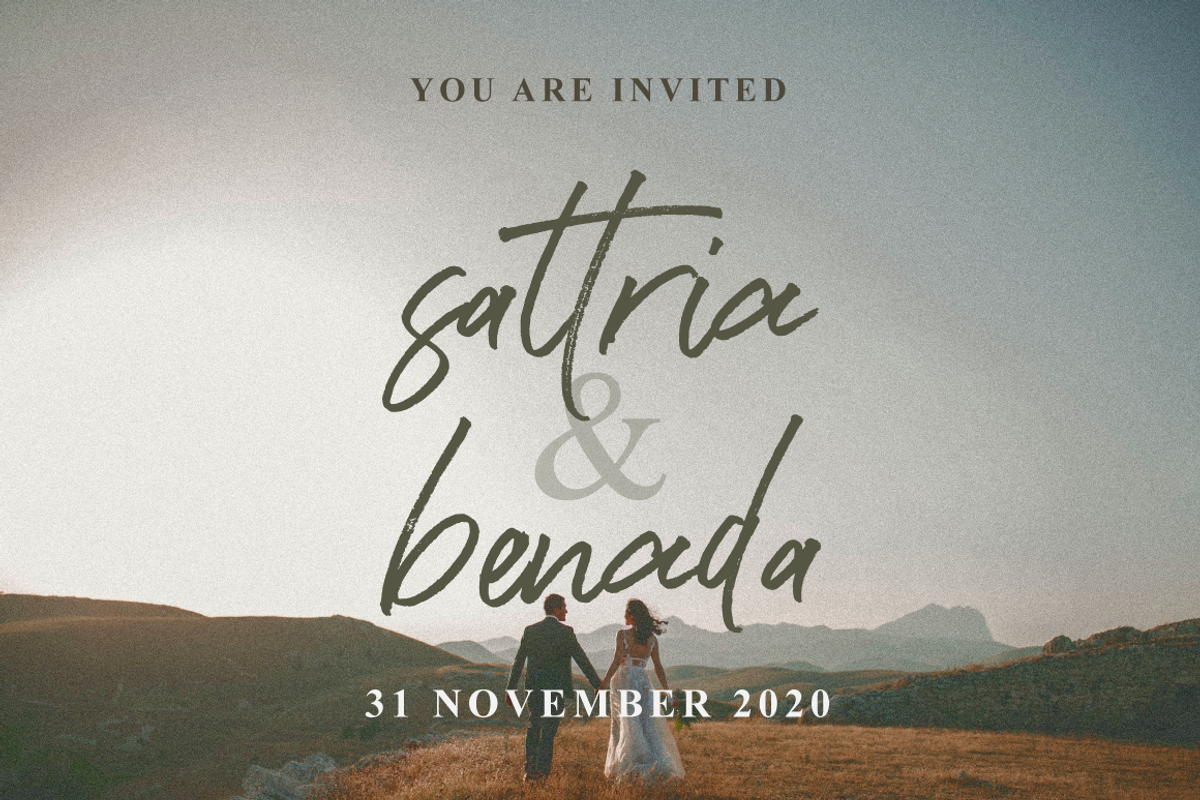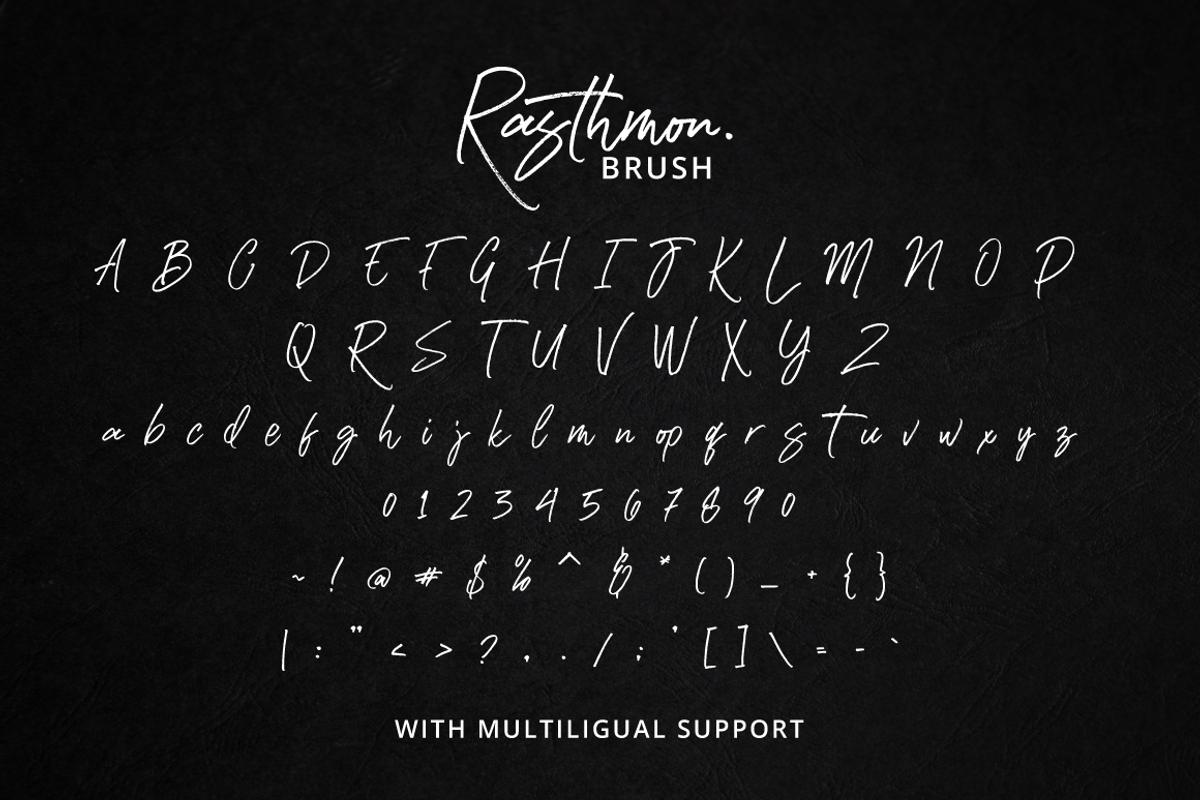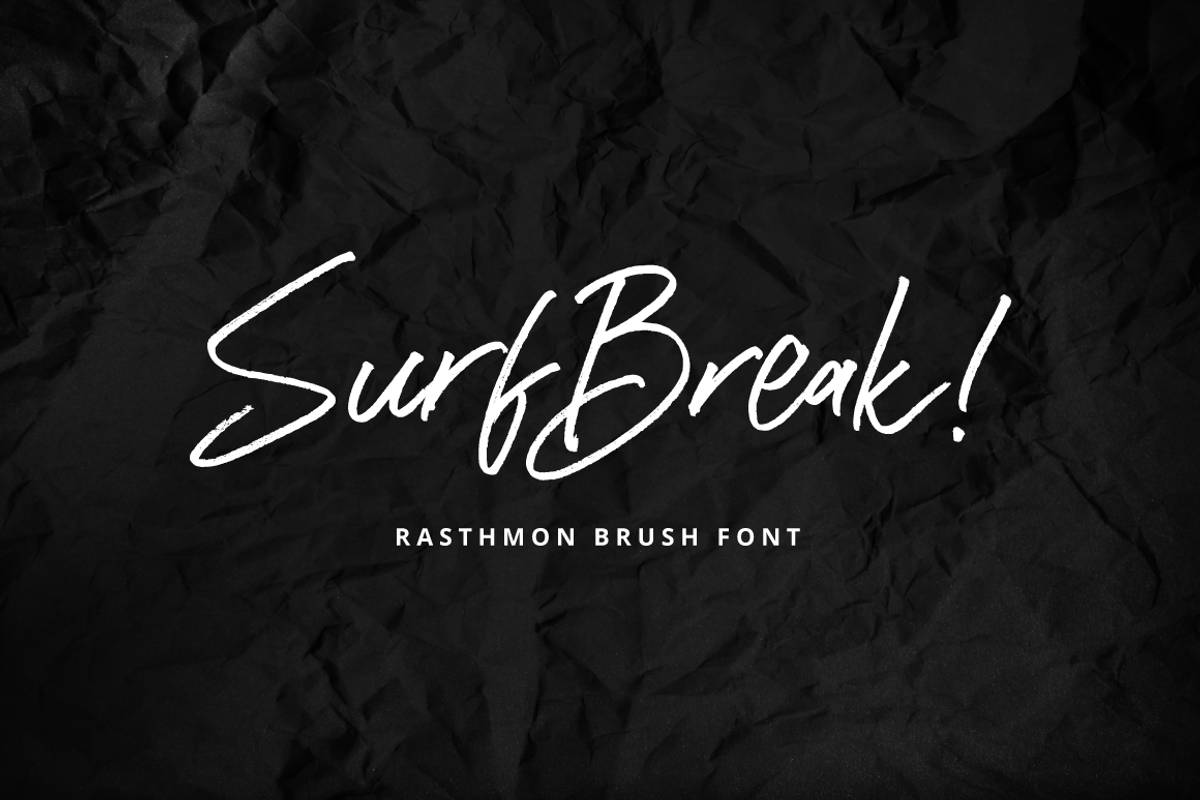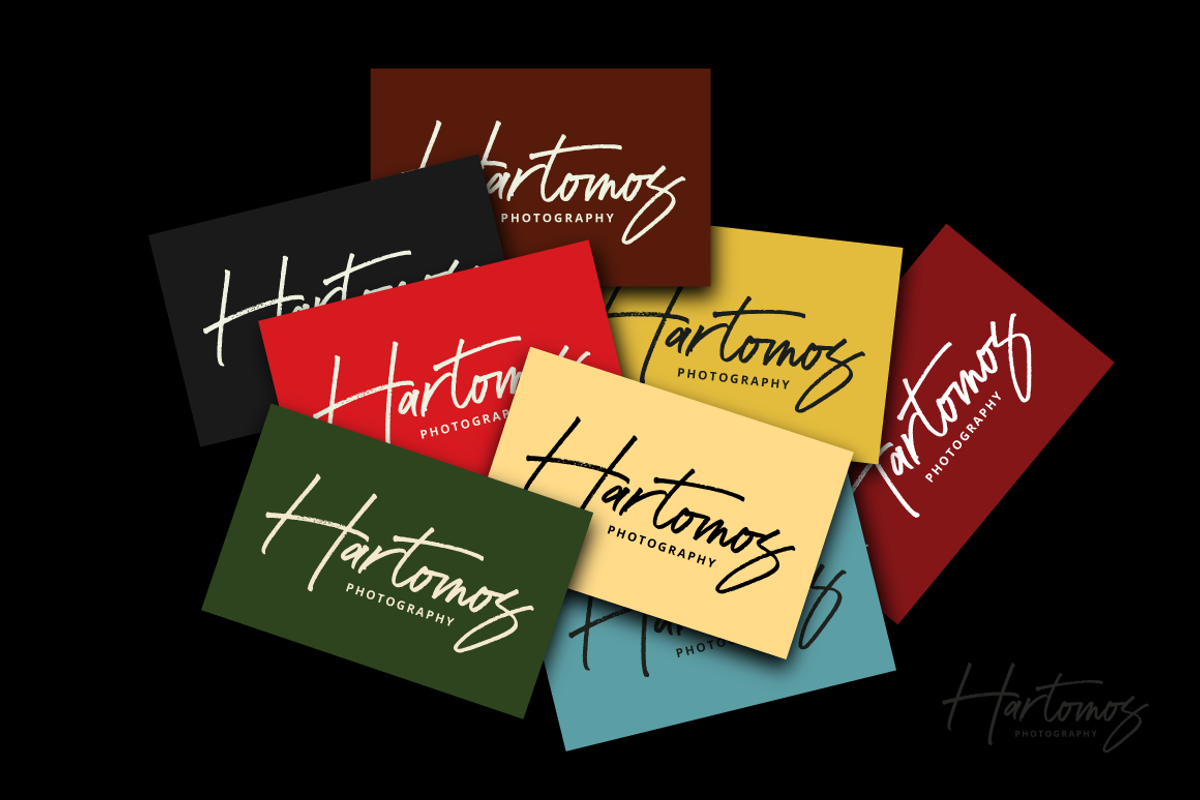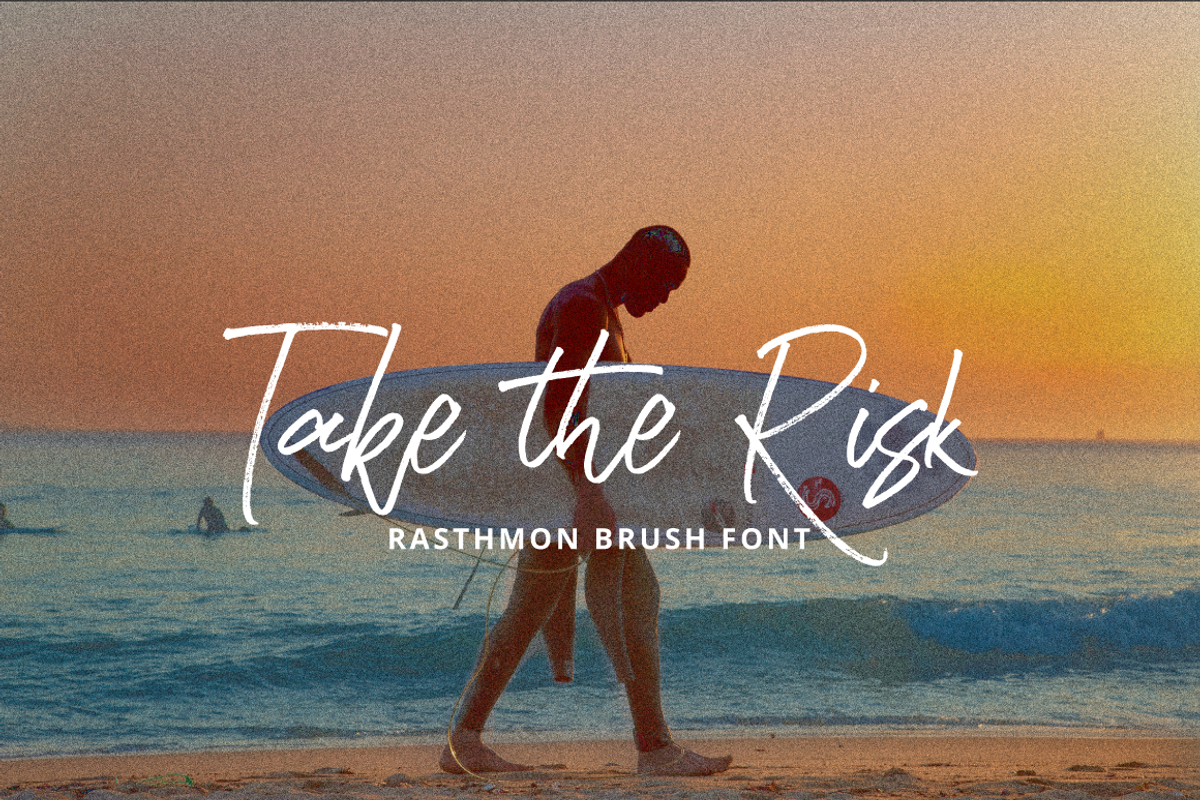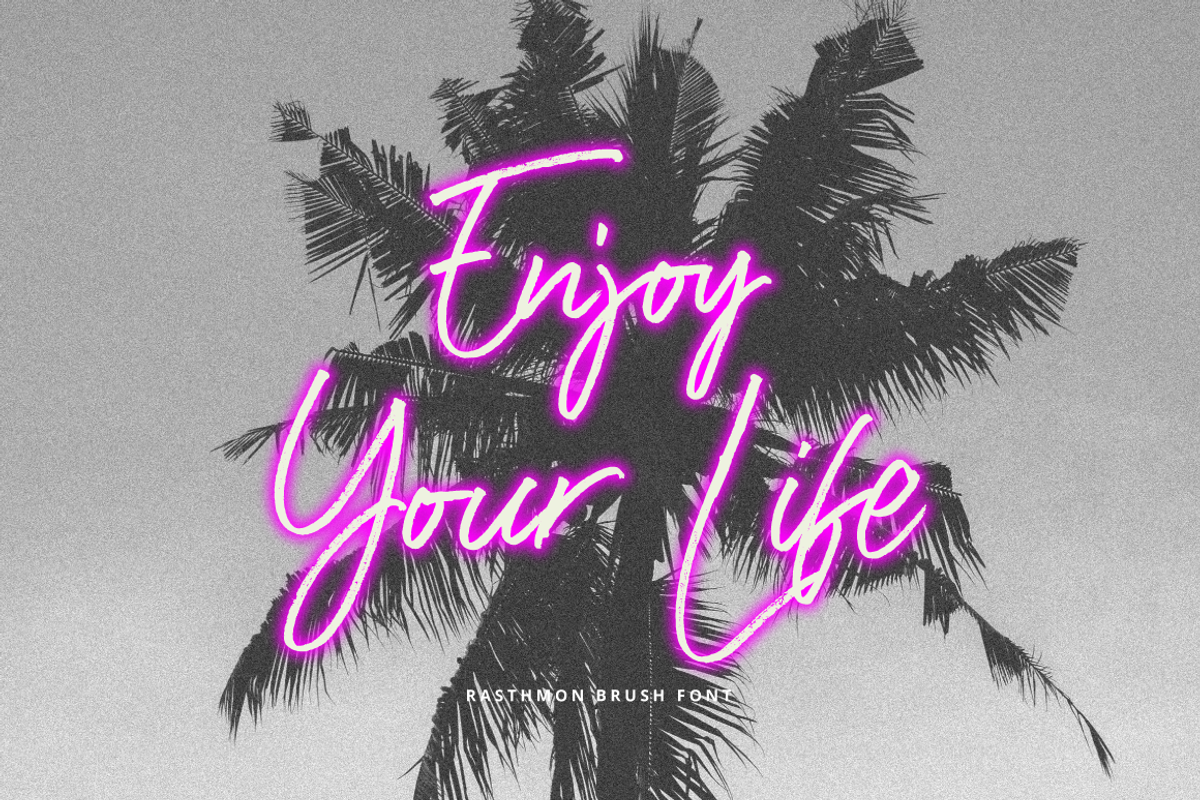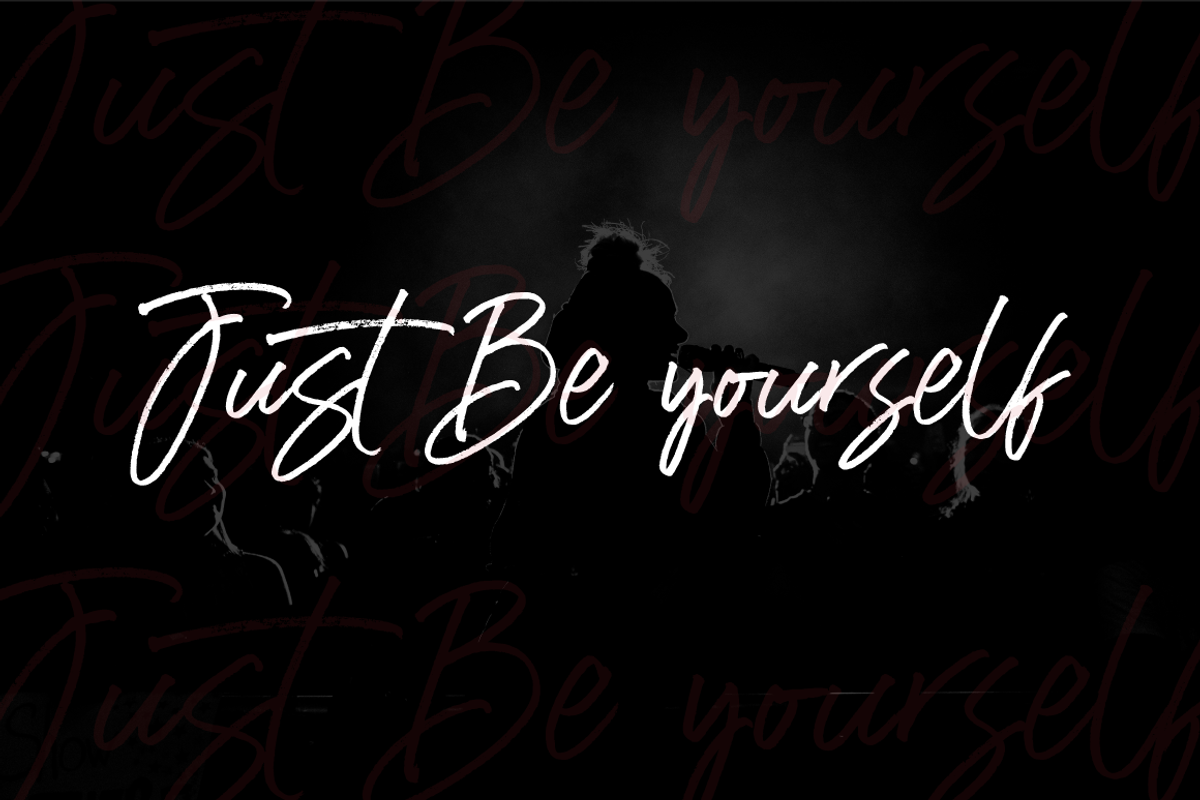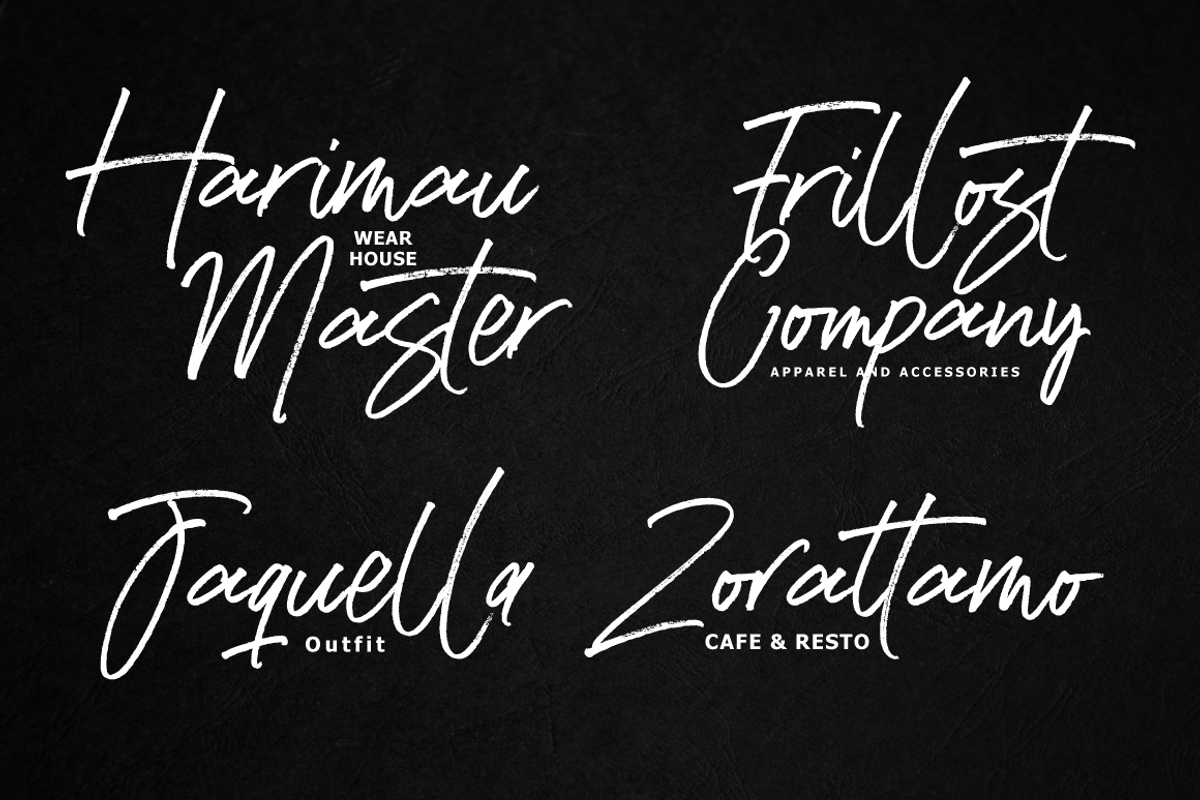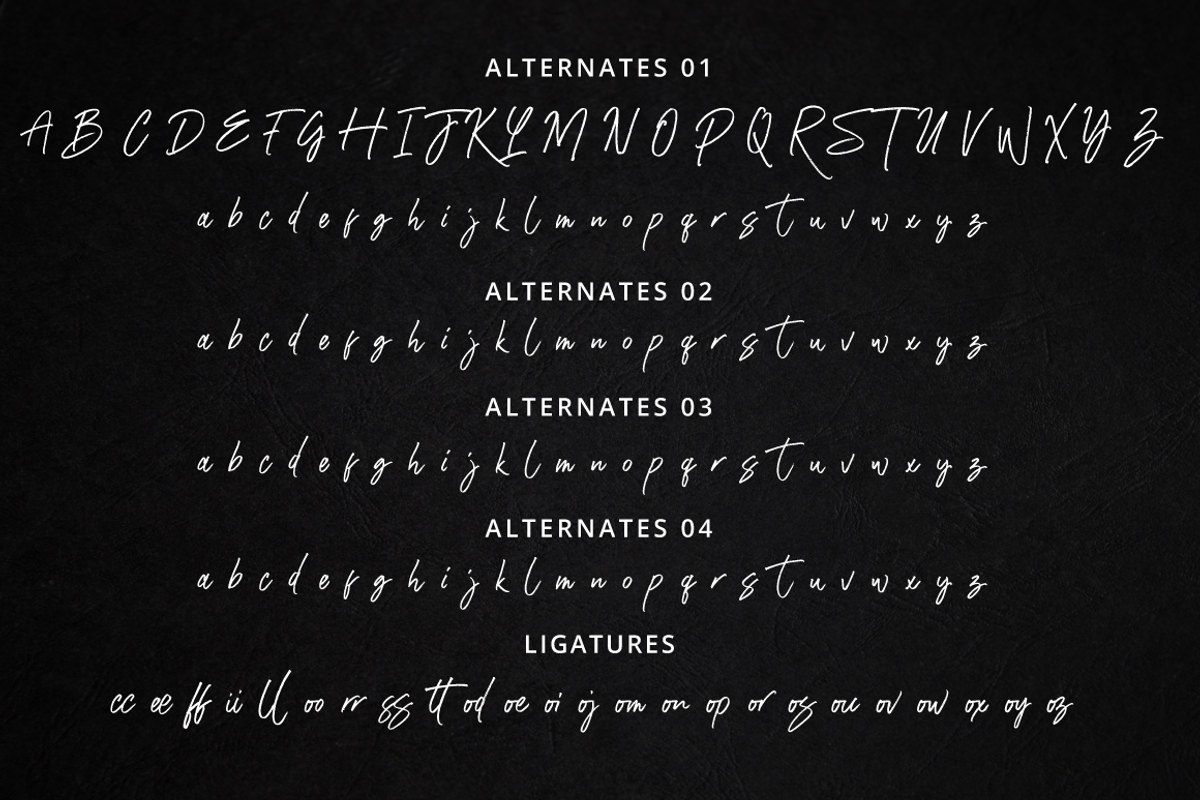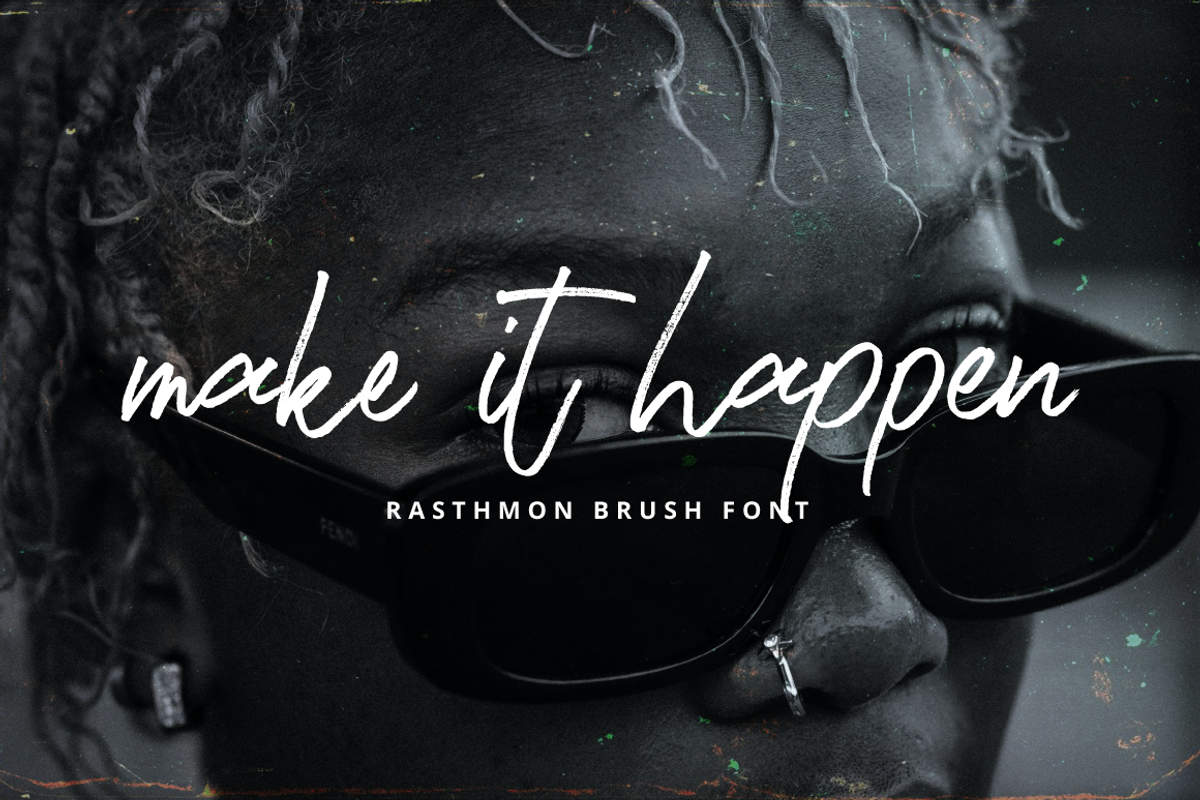
Rasthmon - Brush Font
Rasthmon Brush Typeface , with authentic dry brush imperfections, and a very bouncy baseline It has a perfectly paired complimentary marker font , and a super handy set of bonus Swash. Ideal for logos, handwritten quotes, product packaging, header, poster, merchandise, social media & greeting cards.